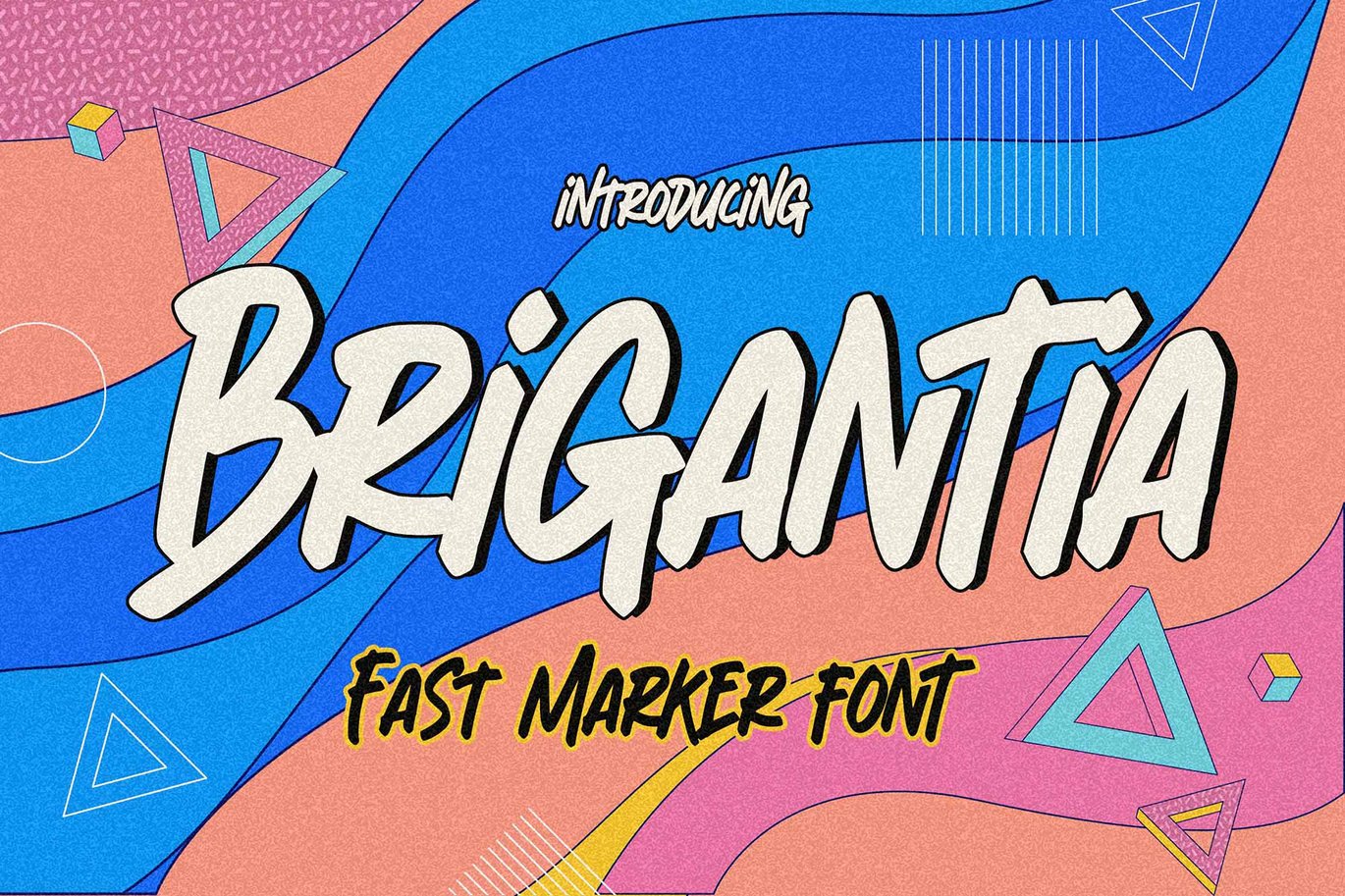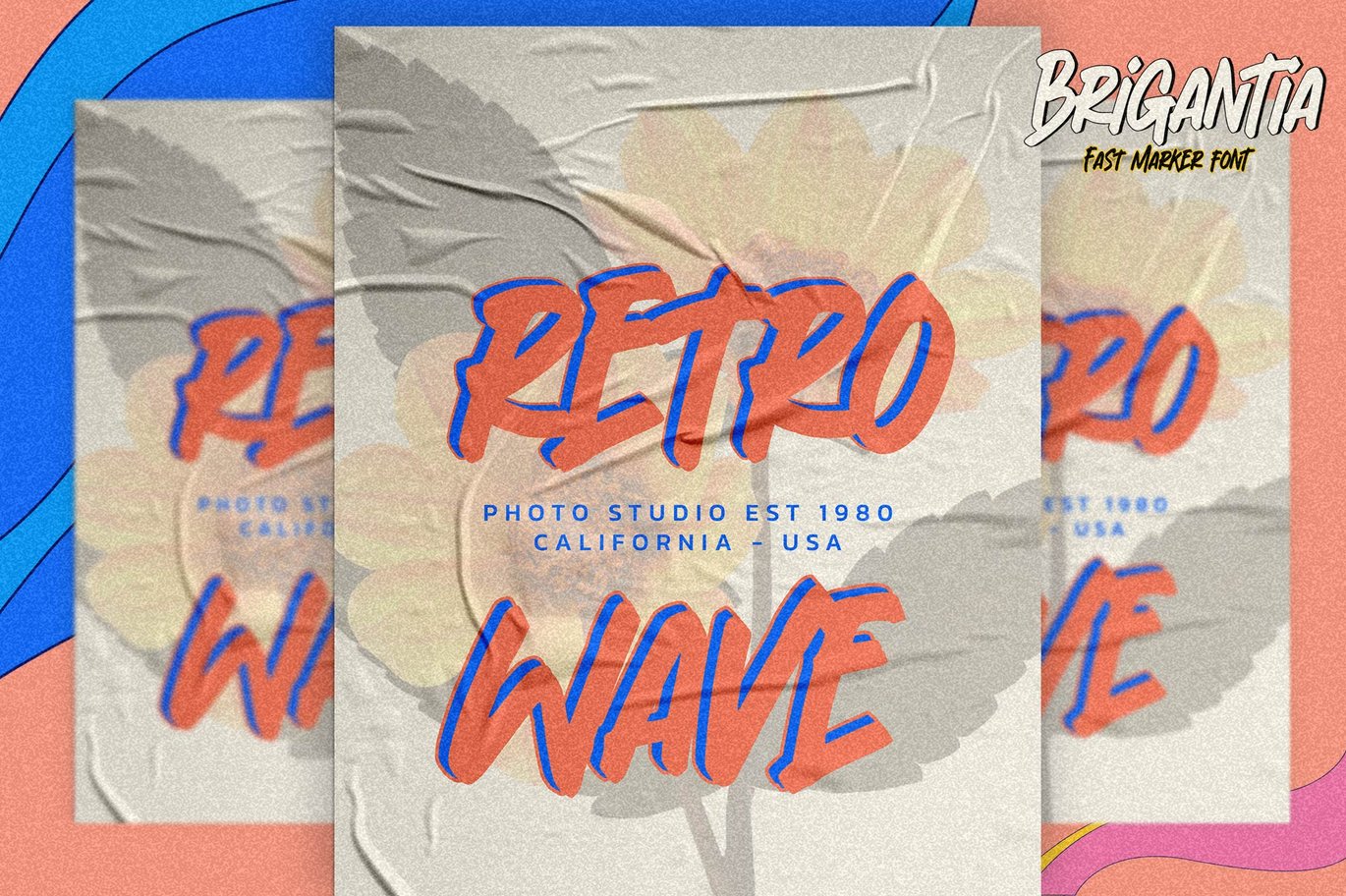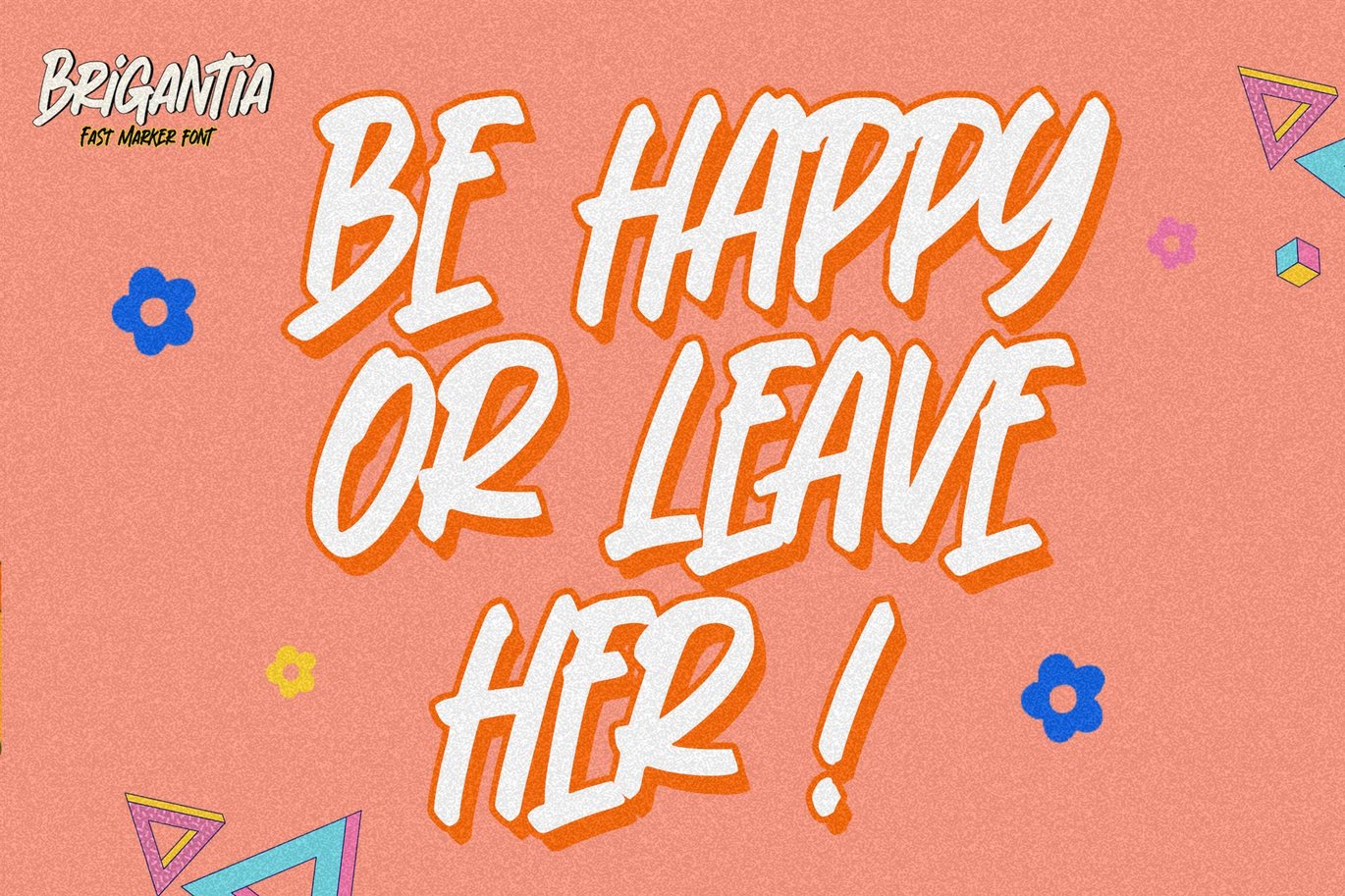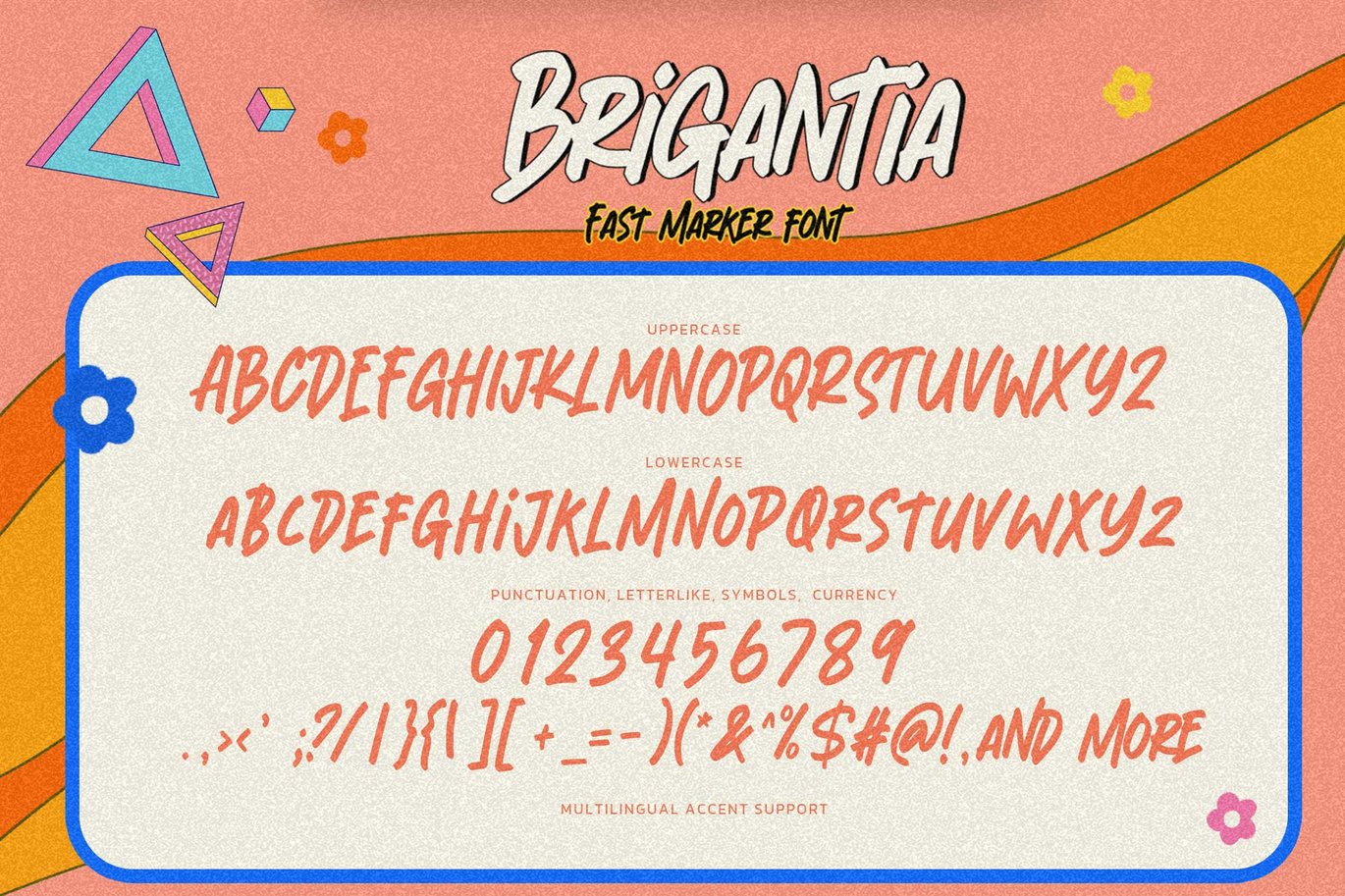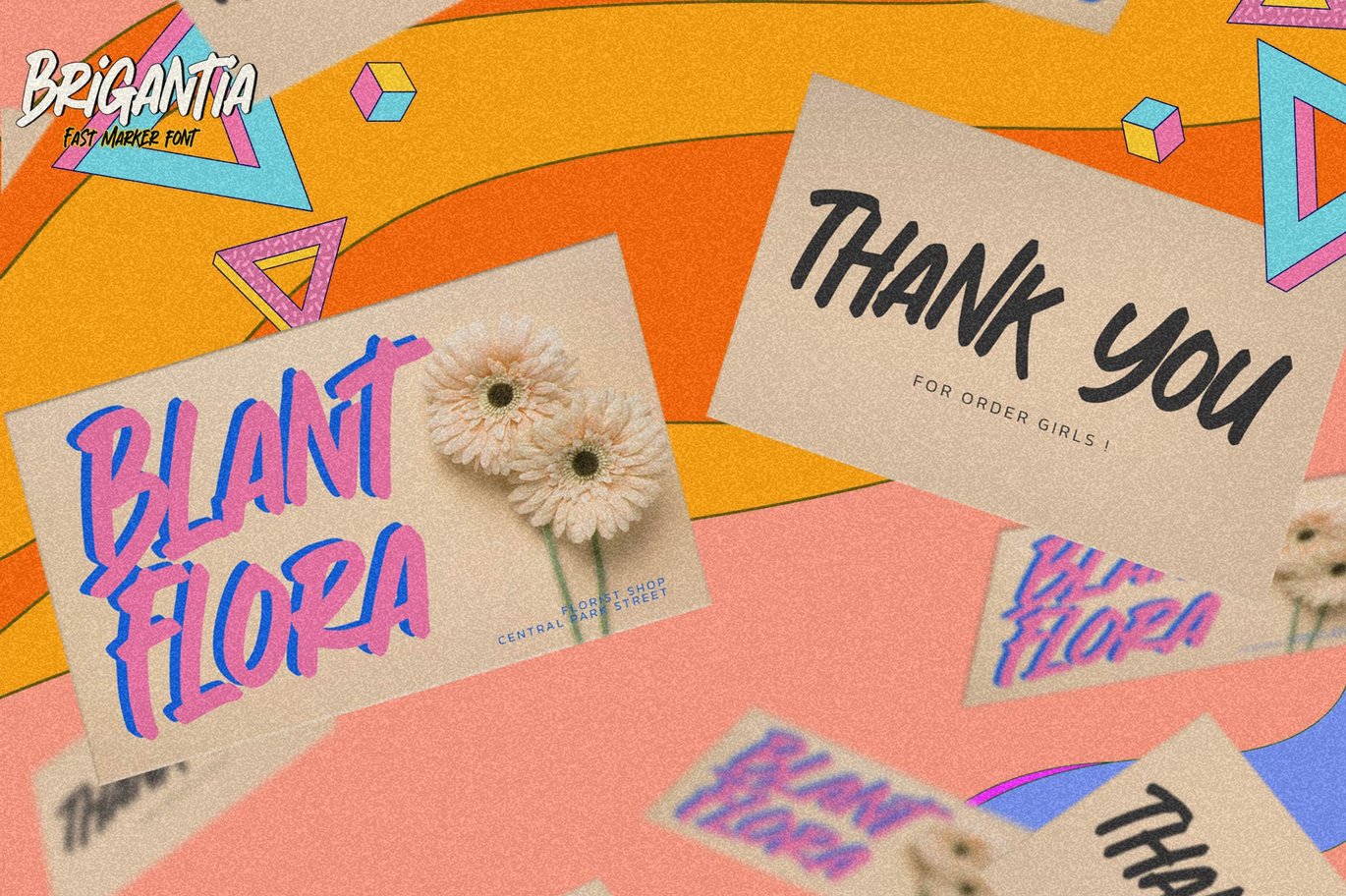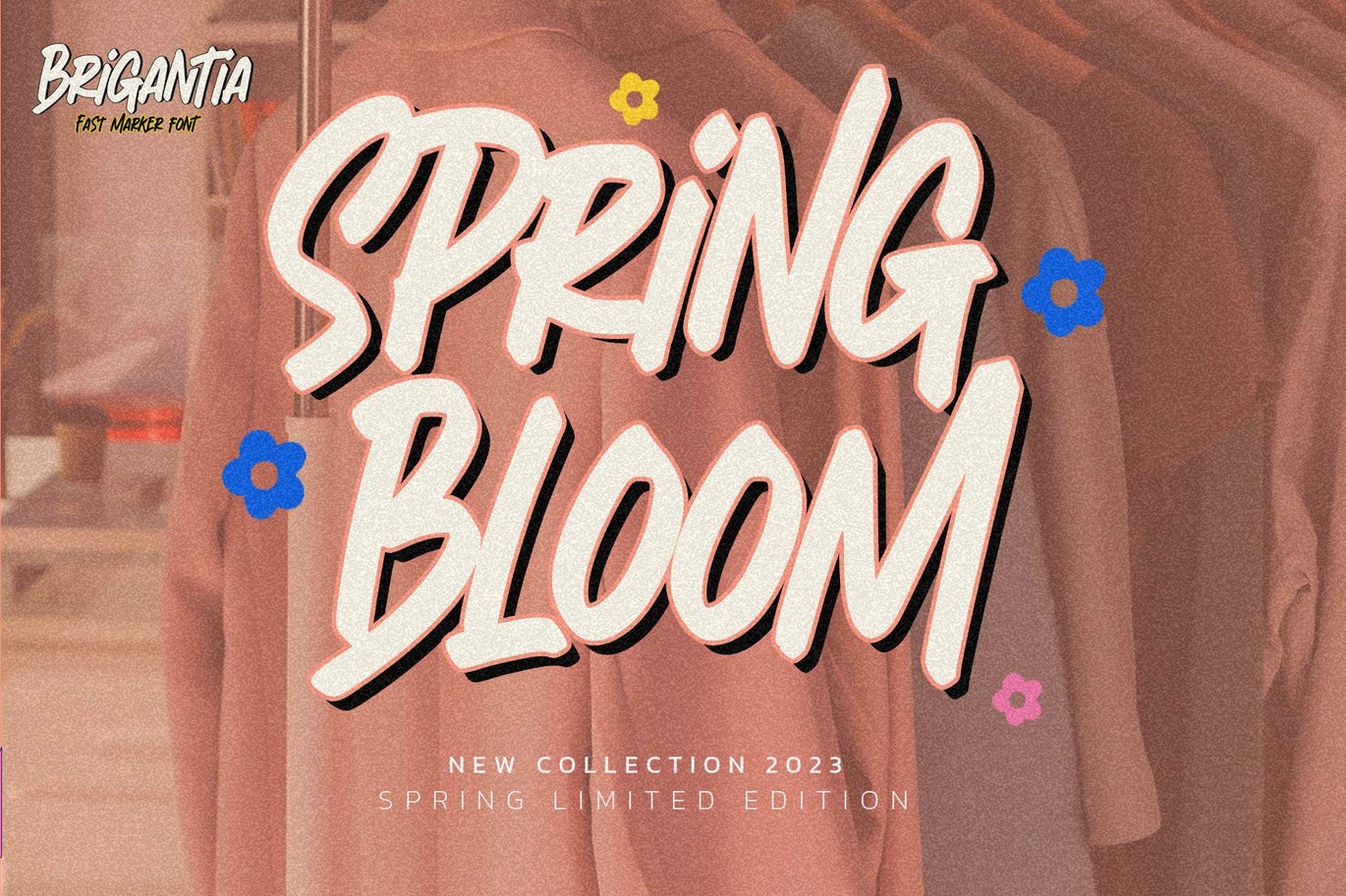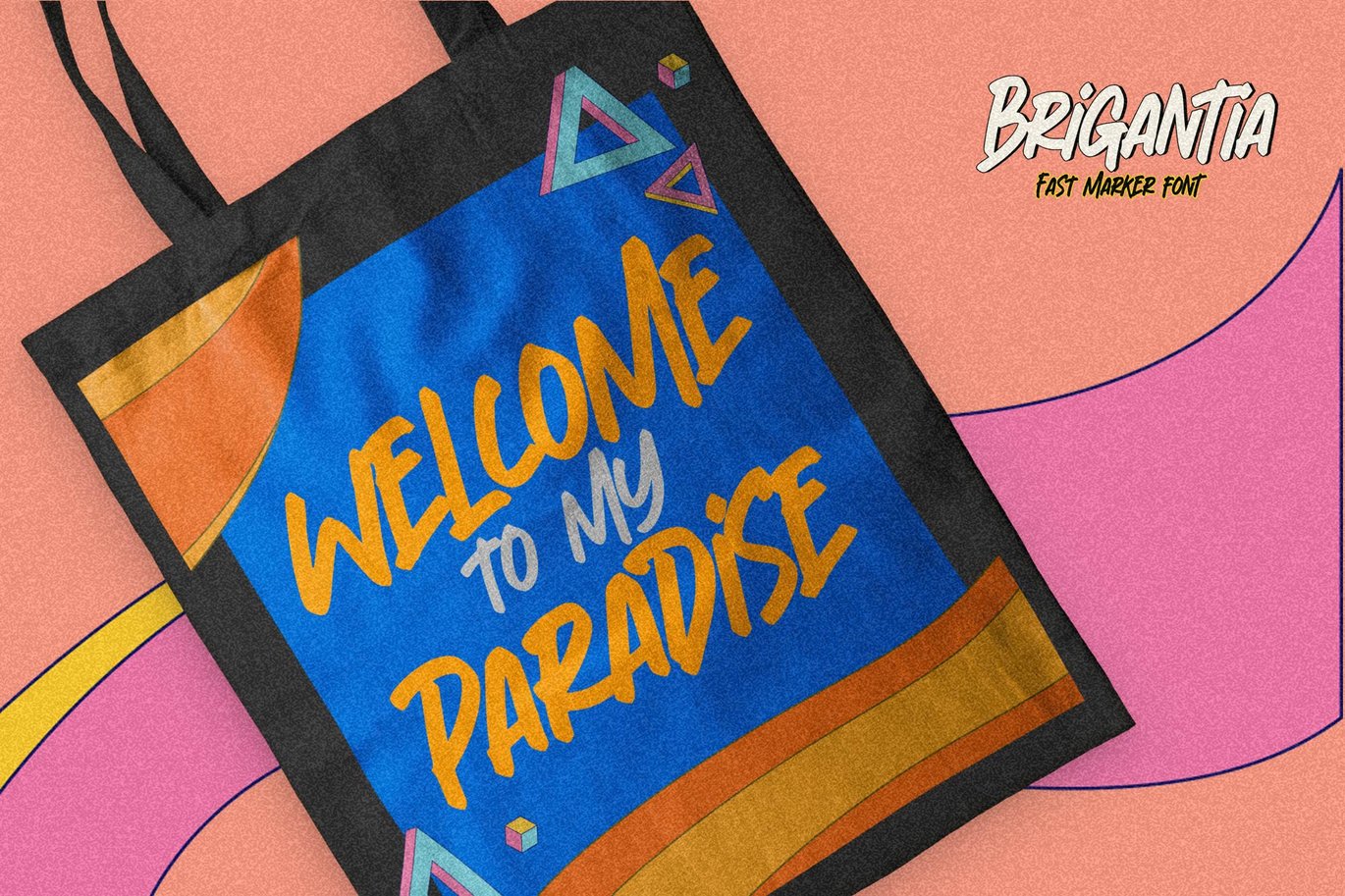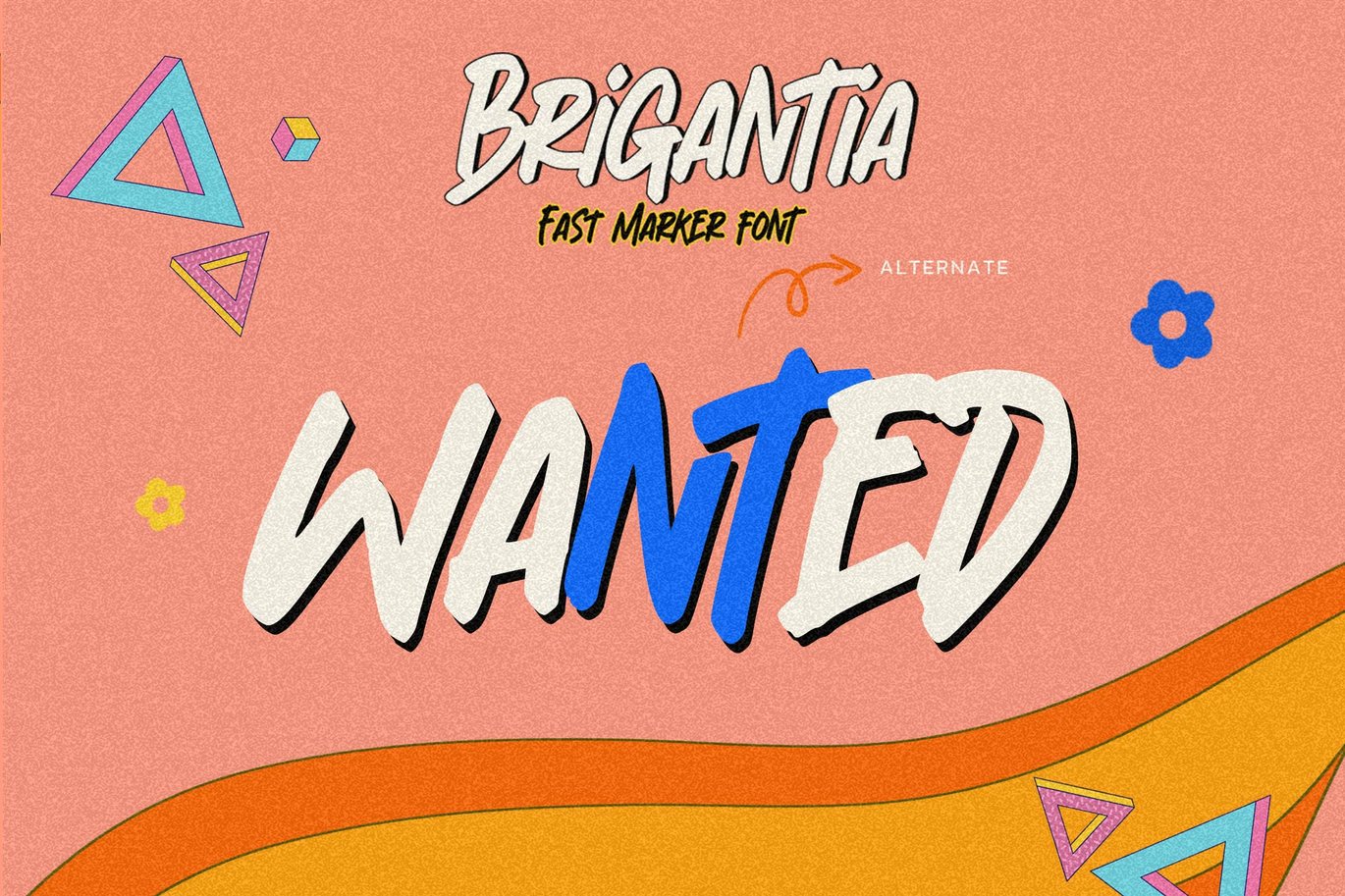
Brigantia – Fast Marker Font
Hello Everyone, introduce our new product Font Brigantia This Is Fast Marker Font.This is a Textured Natural Style and classy style with a clear style and dramatic movement.
This font Brigantia is great for your next creative project such as logos, printed quotes, invitations, cards, product packaging, headers, Logotype, Letterhead, Poster, Design this font is great for your creative projects such as watermark on photography, and perfect for logos & branding, invitation,advertisements,product designs, stationery, wedding designs,label ,product packaging, special events or anything that need handwritting taste.
That is has charming, authentic and relaxed characteristic more natural look to your text.
Fonts include multilingual support